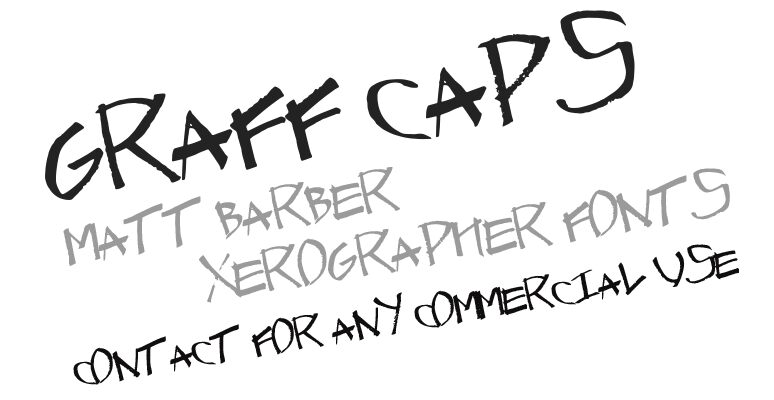
Graff Caps, created by Xerographer Fonts in 2012, is a free handwritten caps font with the raw snap of quickly painted street lettering. Tall, uneven letters combine sharp points, abrupt changes in stroke width, scraped edges, and a loose spacing pattern that makes neighboring forms bump together.
Independent skate and streetwear brands are the clearest fit. Their restless look suits logos, T-shirts, poster campaigns, album covers, and event graphics for audiences drawn to rough, unruly typography and local independent music culture.